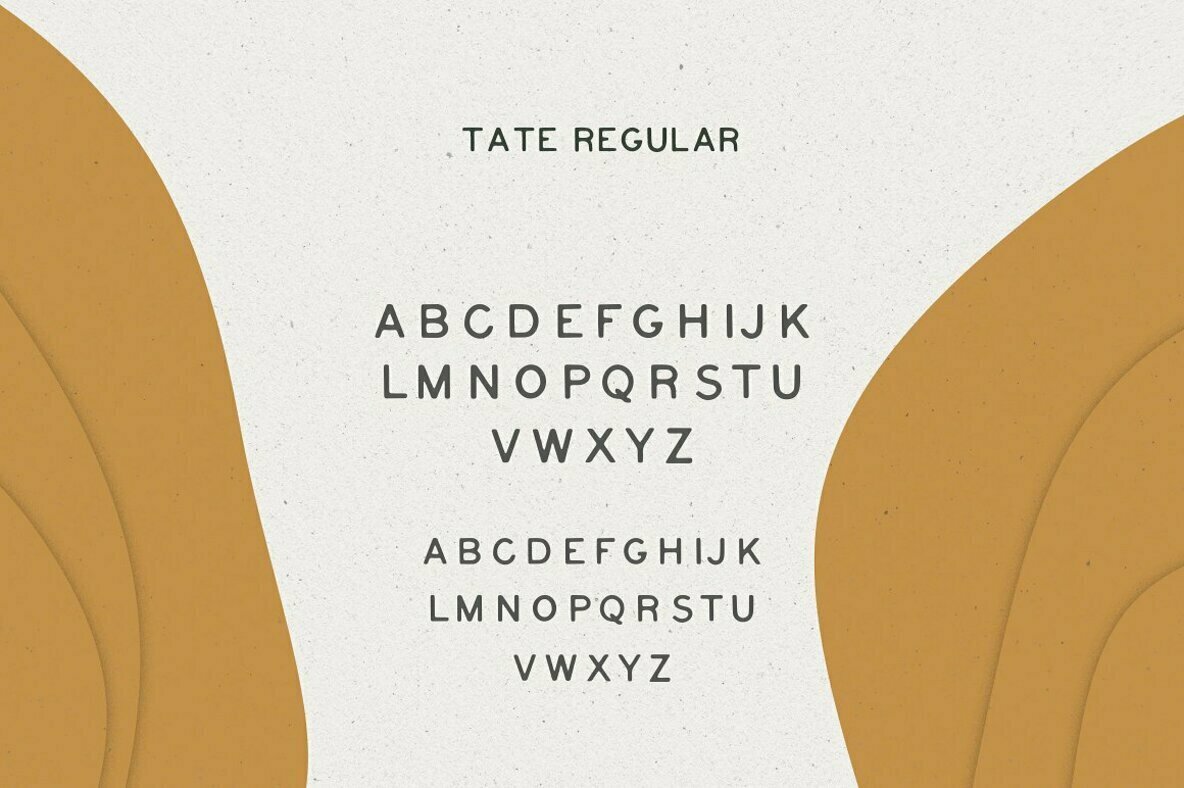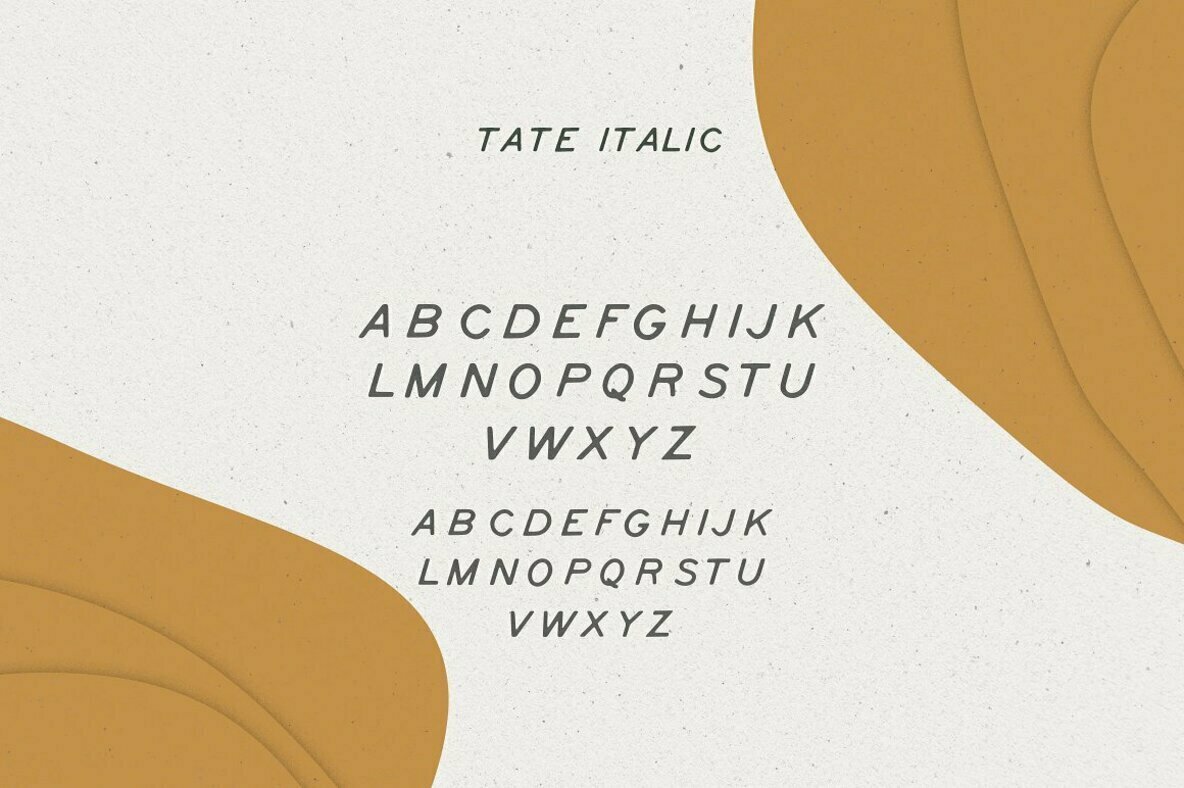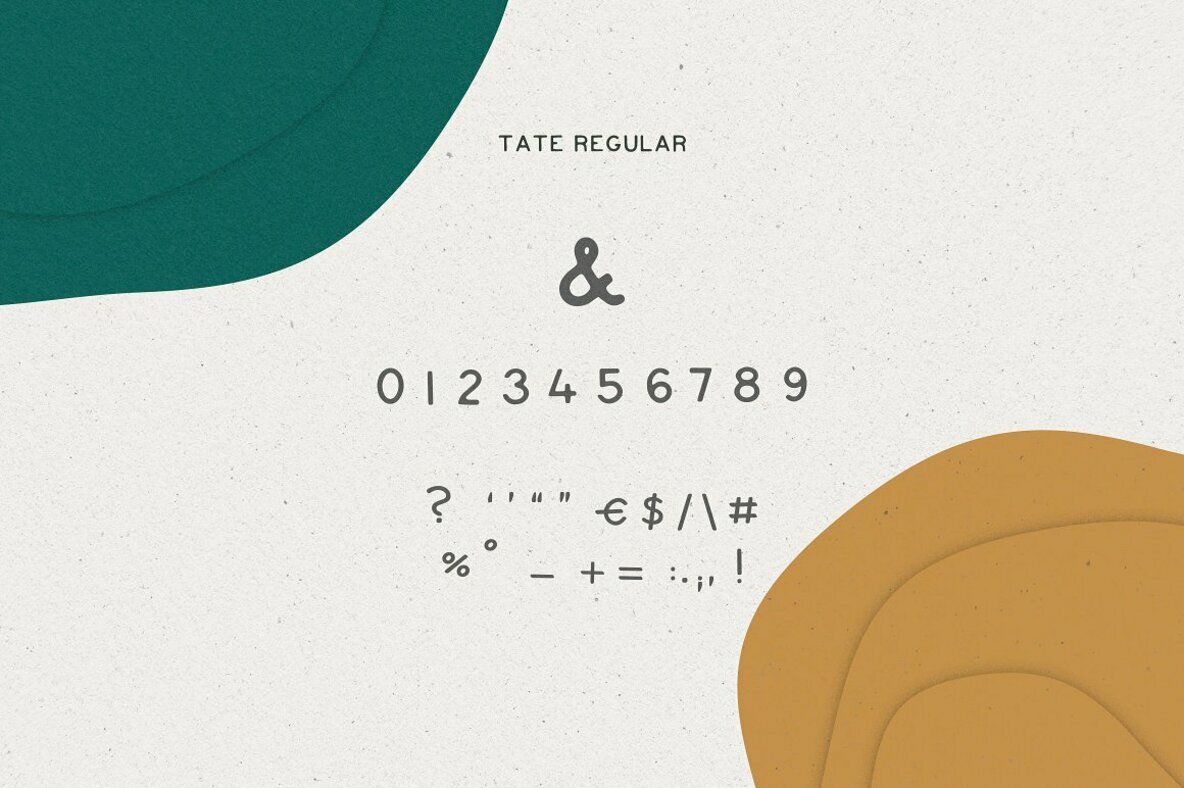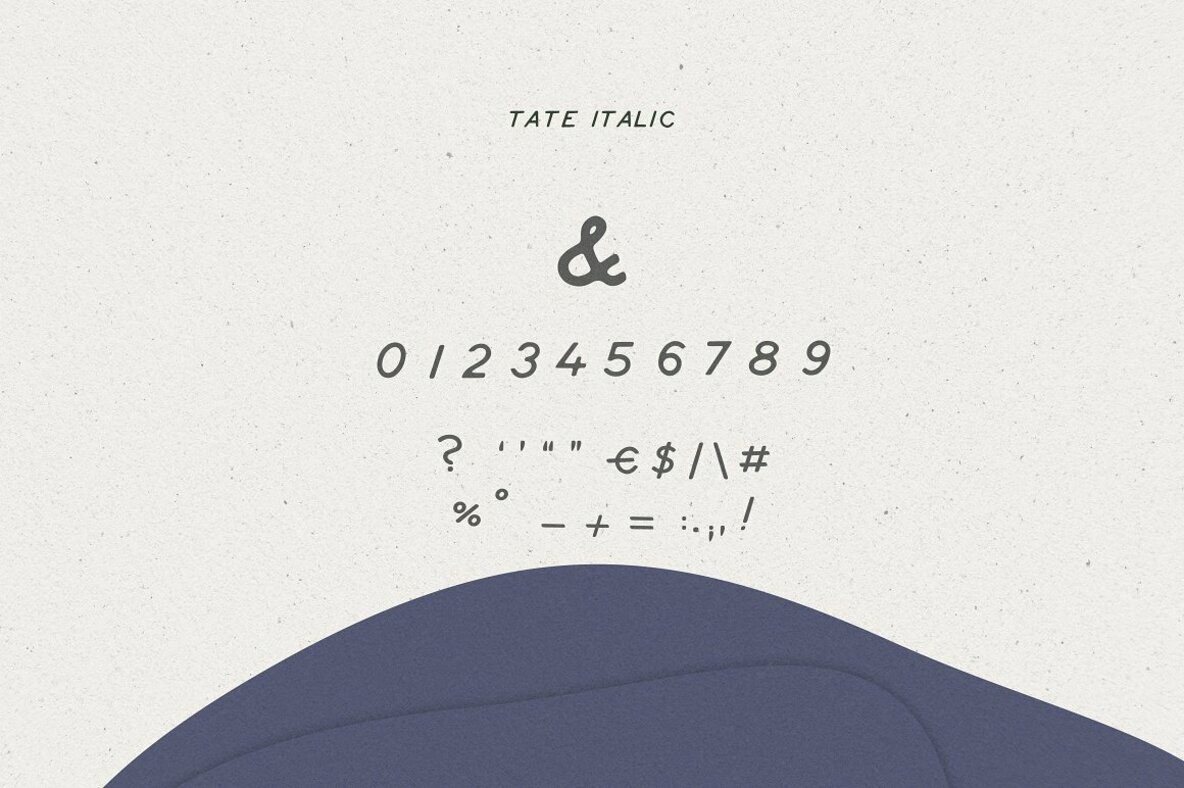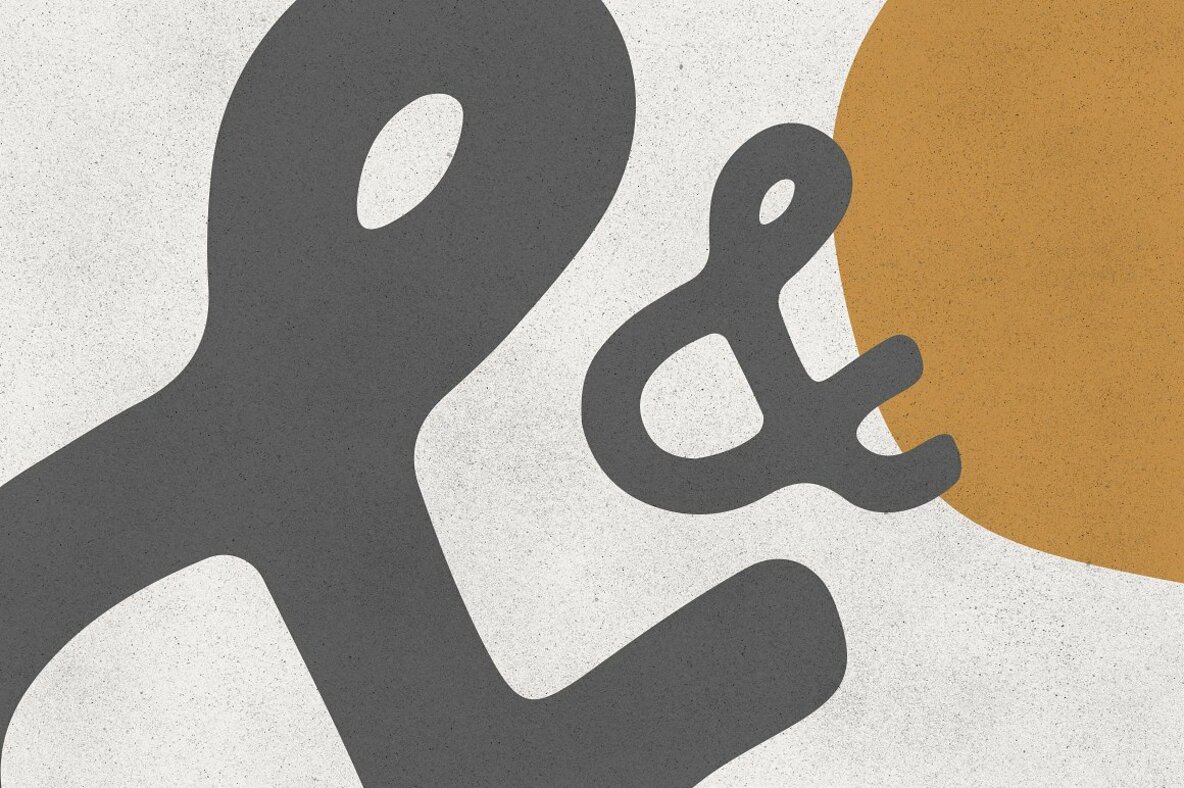
Tate Font
Tate is a hand drawn font that features uppercases, numbers and a basic set punctuation. Have fun using Tate in logo design, brands and labels. It's perfect to give a unique vibe to your digital products and websites.